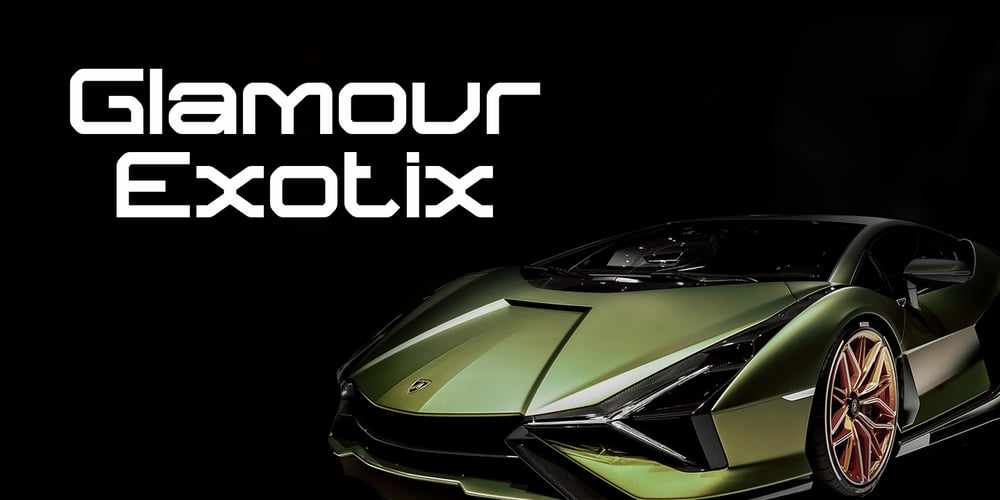
Collonse
Collonse font
Collonse Font Family was designed by Ali Sifak Muftari and published by Liartgraphic. Collonse contains 3 styles and family package options. Hello guys!Introducing our newest product, we call this product the Colonse font is a font family consisting of regular, bold and hollow colonsWith a unique and firm touchColonse font is great to use on:fashion magazines, logos, and photography, landing pages, flyers,What’s included- multilingual supportThank you, best regardsAli Sifak Muftari